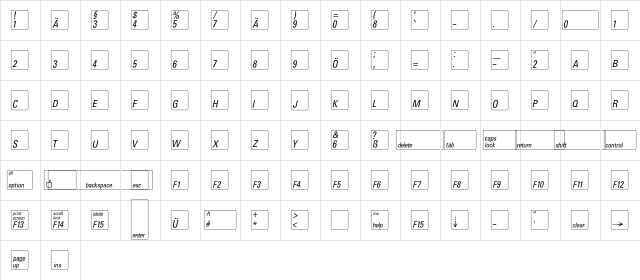
KeyFontDeutsch-Light Regular
Design Context for KeyFontDeutsch-Light Typeface
KeyFontDeutsch-Light is a composed and adaptable typeface that performs quietly and consistently across a wide range of design contexts. The delicate stroke weight brings airiness and refinement to layouts.